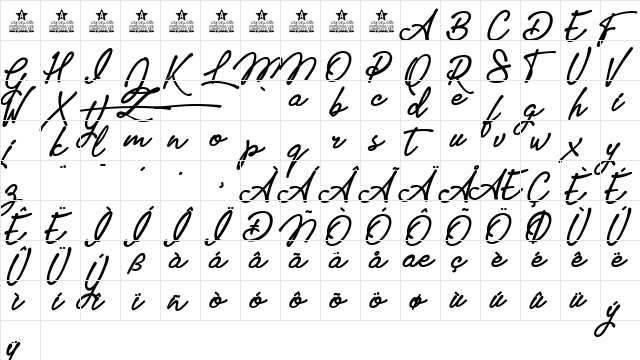
Pumpkins Personal Use Regular
| Foundry | Billy Argel |
| Designer | Billy Argel |
Design Context for Pumpkins Personal Use Typeface
Pumpkins Personal Use is a composed and adaptable typeface that performs quietly and consistently across a wide range of design contexts.